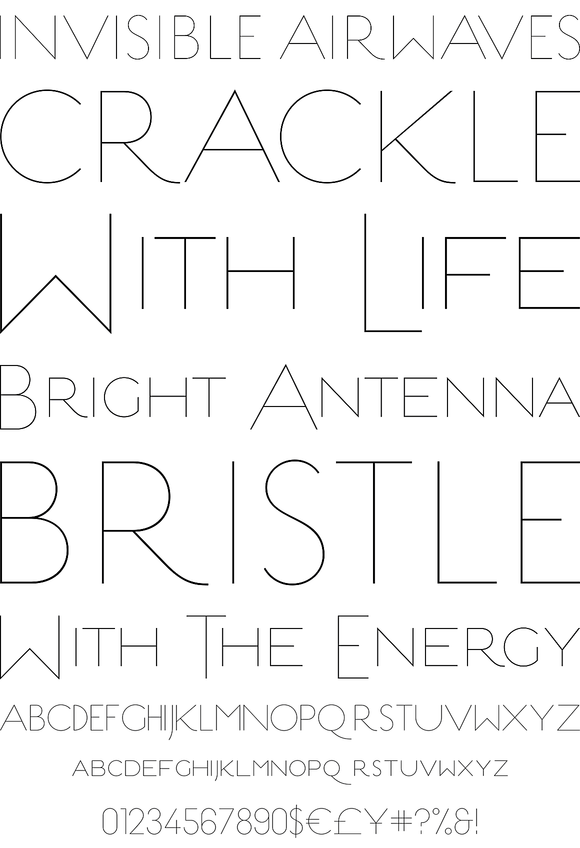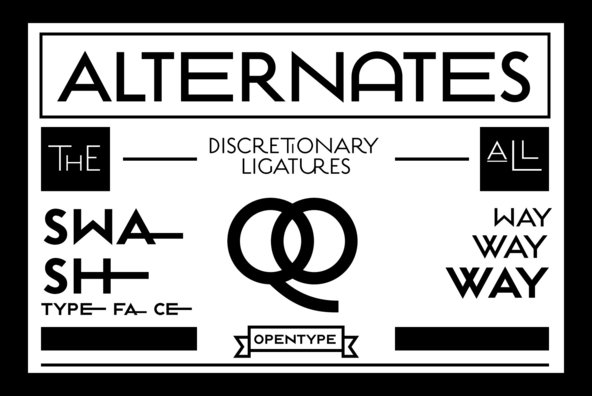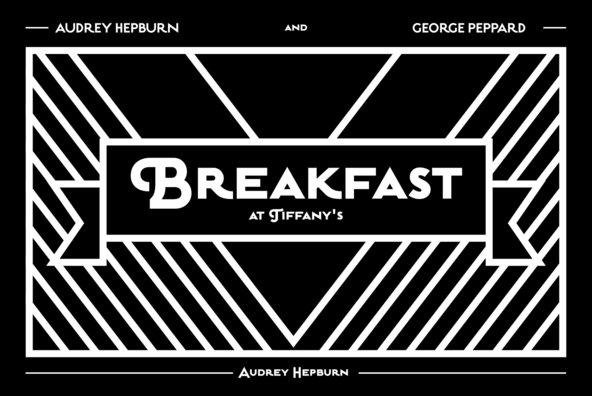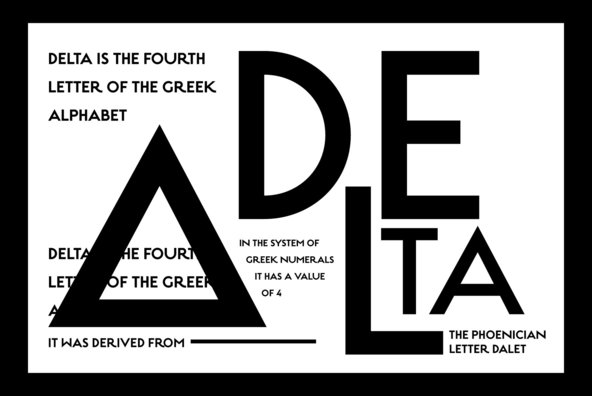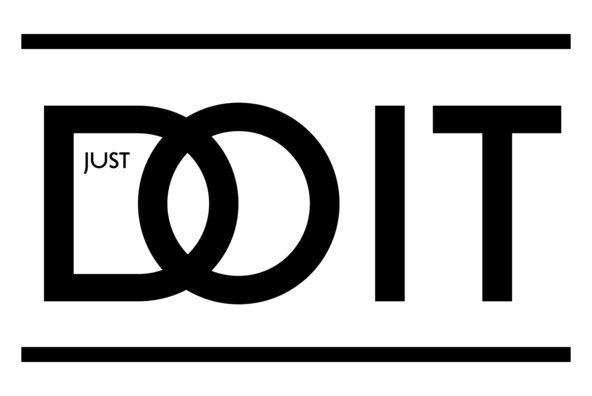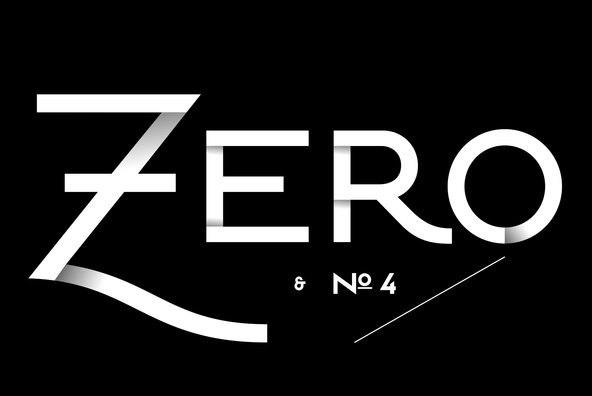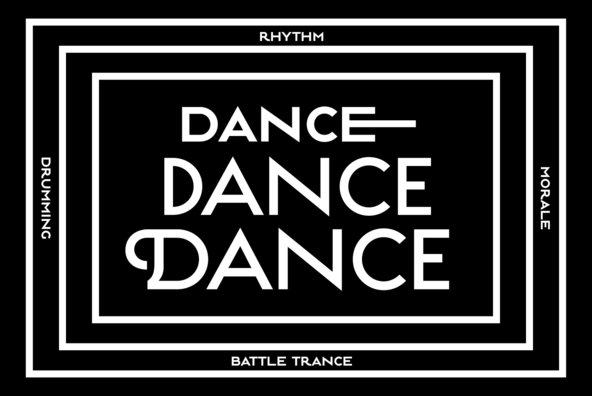
Five years later, DSType proudly introduces Estilo Pro: the Ultimate version of Estilo.
Five years later, DSType proudly introduces Estilo Pro: the Ultimate version of Estilo. Now with sharp edges and five weights, from Hairline to Bold, Estilo Pro includes an extraordinary set of features like Alternate Characters, Initial Swashes, Ending Swashes, Ligatures, Ornaments and Drop Caps in a total of 1000 glyphs per weight.